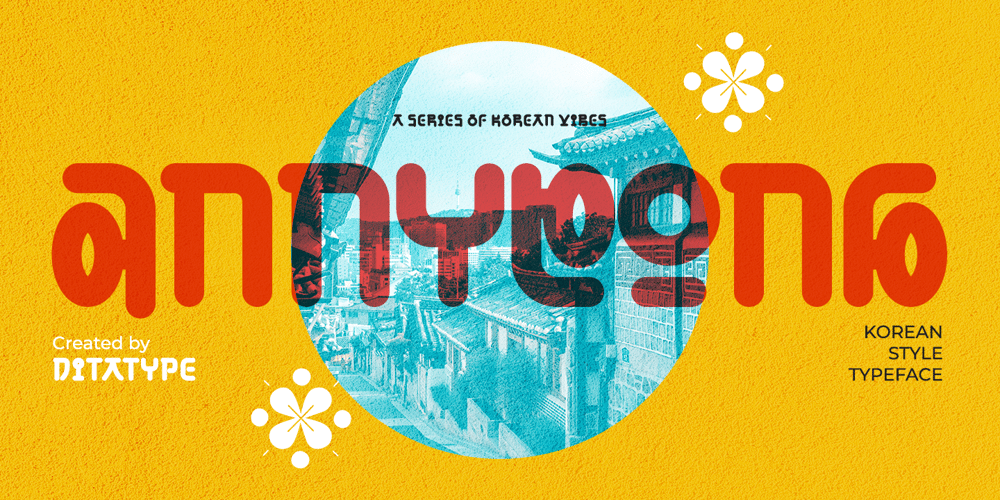
Annyeong
Annyeong font
Annyeong Font Family was designed by Donis Miftahudin and published by Ditatype. Annyeong contains 1 styles and family package options. Annyeong welcomes you with a display font that captures the essence of Korean vibes. This display is a celebration of the dynamic and inviting nature of Korean design. It’s a versatile tool that allows you to infuse your projects with a sense of cultural richness and visual impact.The characters in Annyeong are generously sized, ensuring a powerful and visually striking impact. The bold weight adds a sense of solidity, embodying the strength and confidence found in Korean aesthetics. Infused with Korean vibes, Annyeong brings a touch of cultural richness to every letter. In addition, enjoy the features here.Features: Stylistic Sets Multilingual Supports PUA Encoded Numerals and Punctuations Annyeong fits in headlines, logos, posters, flyers, branding materials, greeting cards, print media, editorial layouts, and many more designs. Find out more ways to use this font by taking a look at the font preview.Thanks for purchasing our fonts. Hopefully, you have a great time using our font. Feel free to contact us anytime for further information or when you have trouble with the font. Thanks a lot and happy designing.